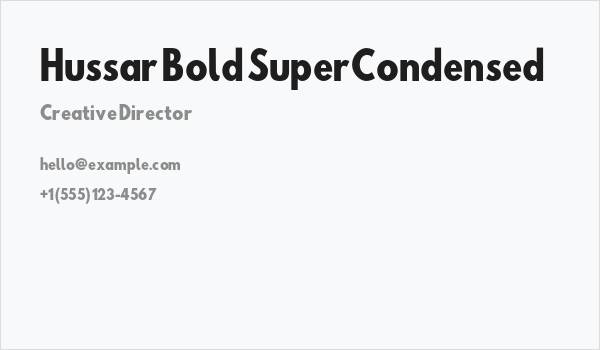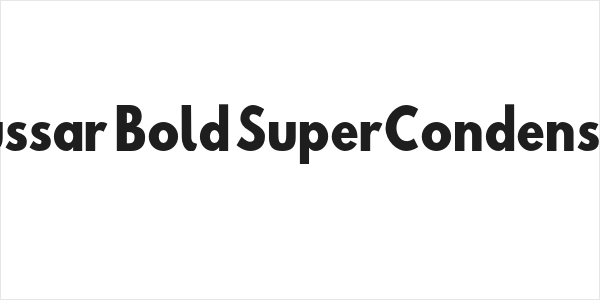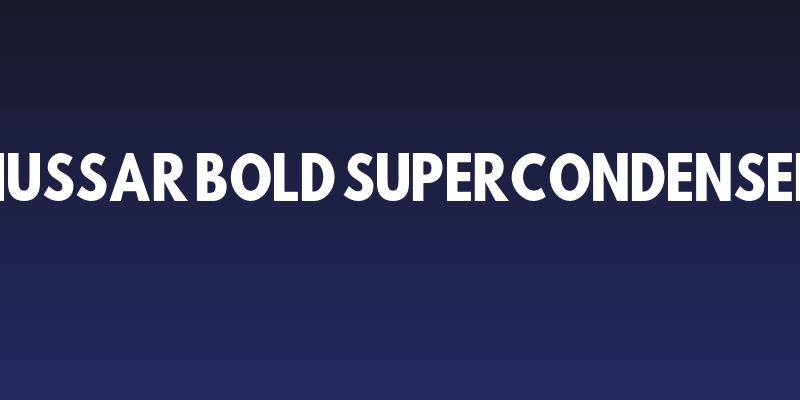
Hussar Bold SuperCondensed Font
Hussar Bold SuperCondensed Description
This font features a bold and super condensed style, characterized by its thick, uniform strokes and minimal spacing between characters. The uppercase letters are strong and impactful, making them ideal for attention-grabbing headlines. The lowercase letters maintain a consistent weight, ensuring readability while preserving the bold aesthetic. Numbers are equally bold, with a uniform height that aligns well with the uppercase letters. Special characters are designed with the same boldness, ensuring they stand out in any text. The overall design is modern and clean, making it suitable for a variety of design applications.
| Proposed Projects | Ideal for headlines, posters, branding, and any project requiring a strong visual impact. |